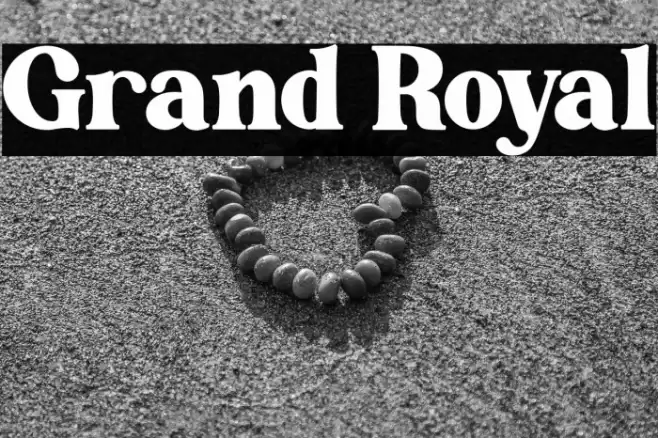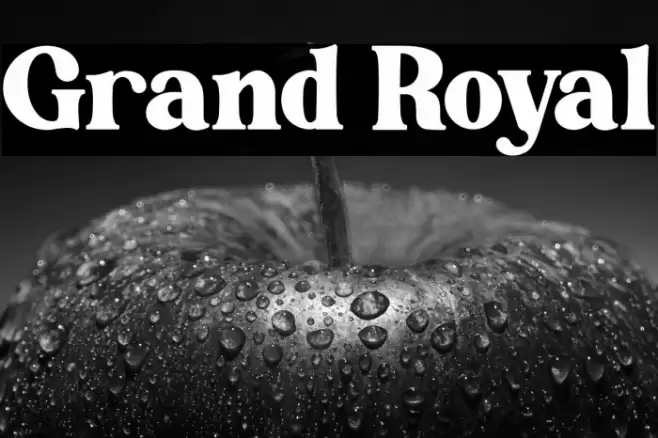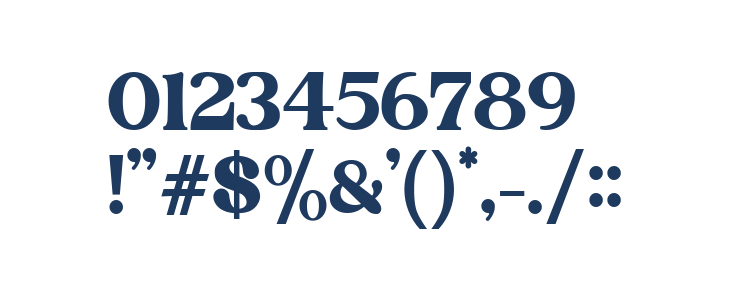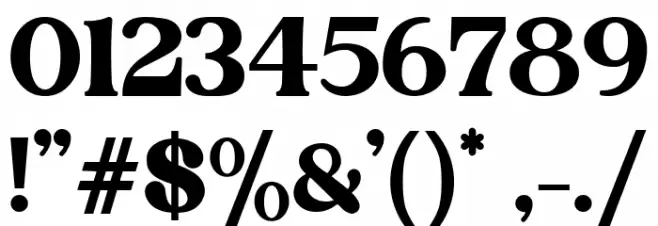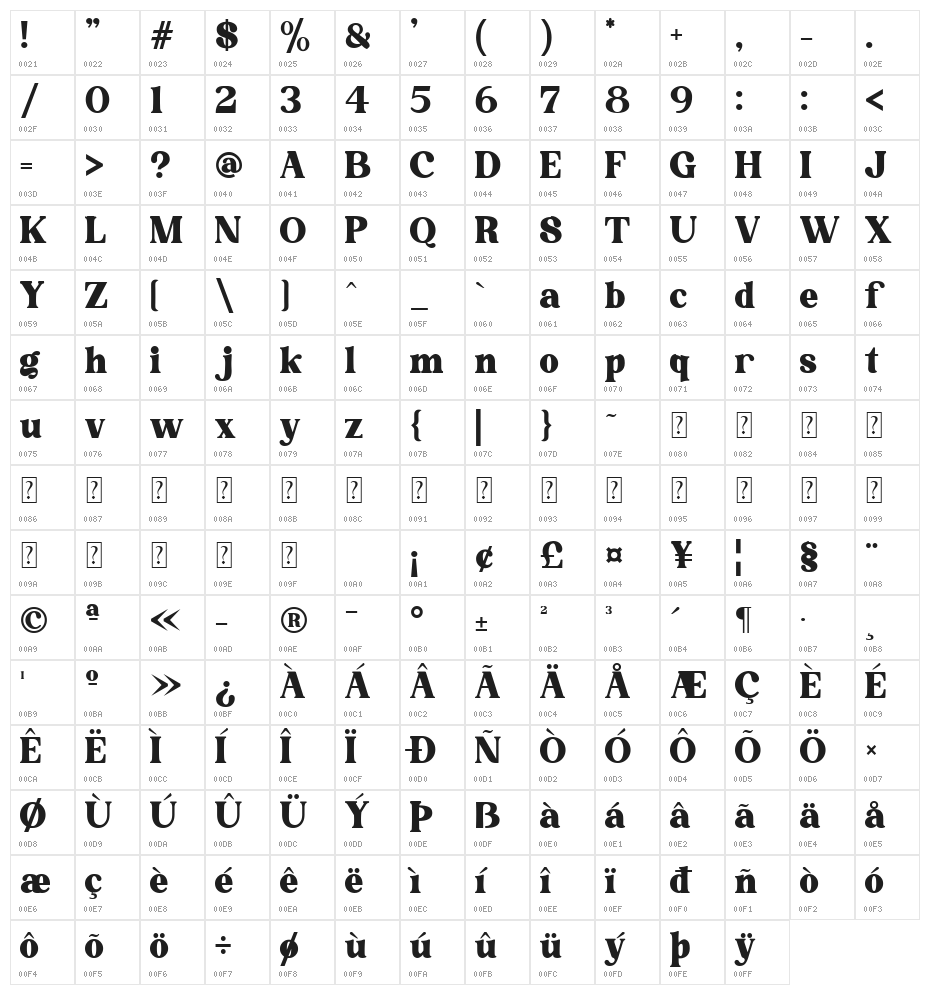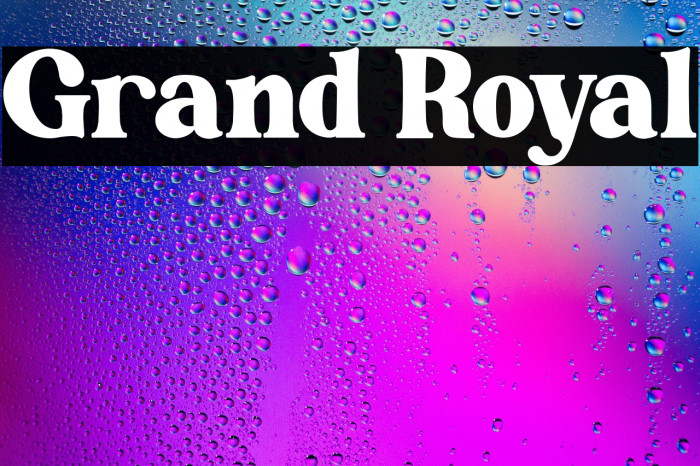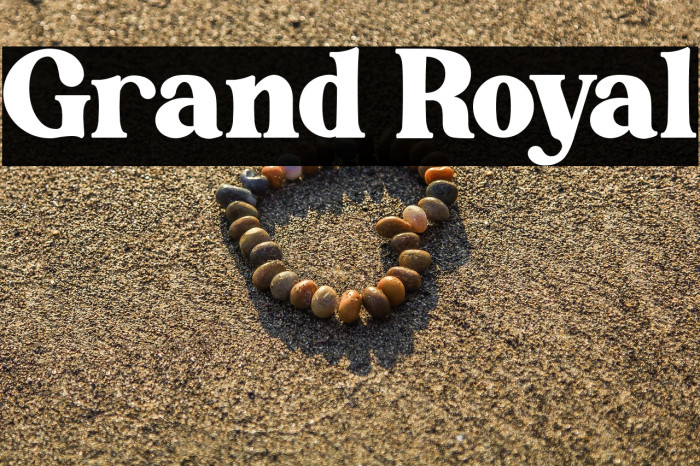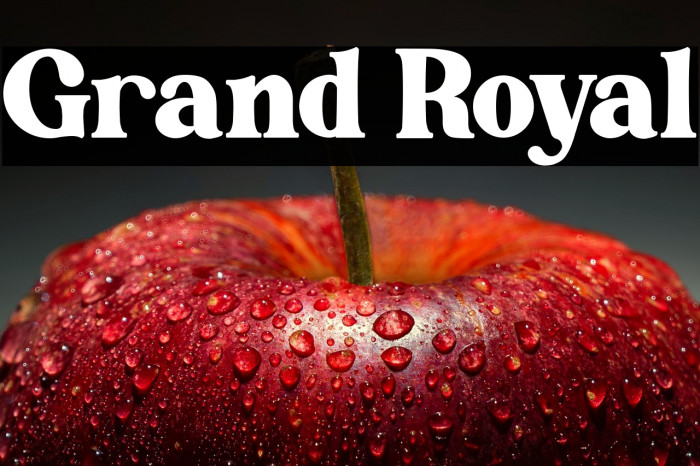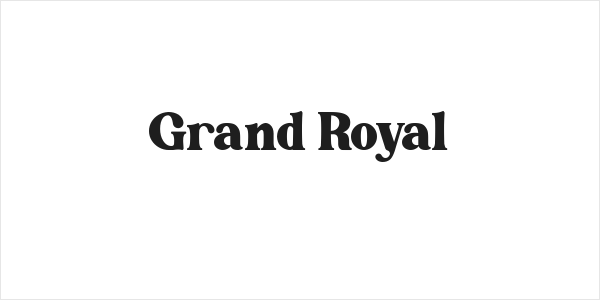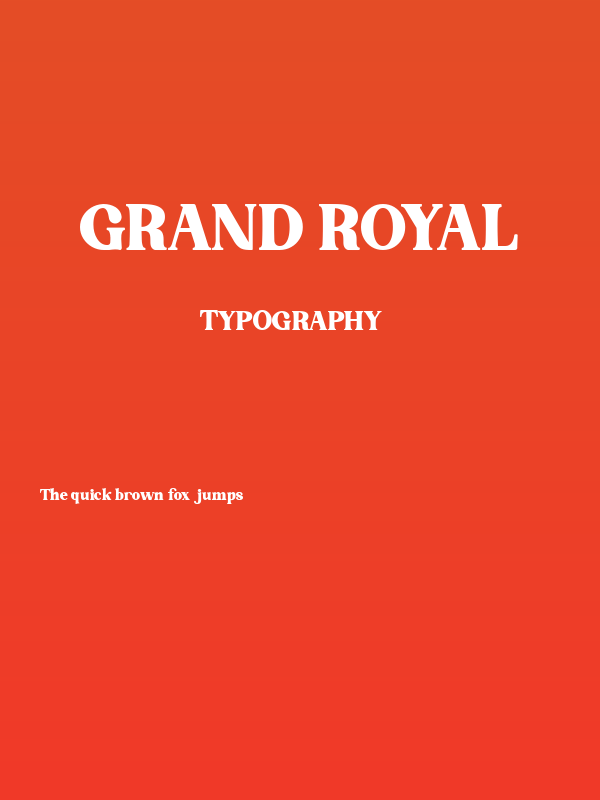
Grand Royal Font
Grand Royal Description
This font exudes a sense of grandeur and elegance, characterized by its bold and prominent serif style. The uppercase letters are stately and commanding, with a strong presence that is ideal for making a statement. The lowercase letters maintain a consistent weight, offering a harmonious balance with the uppercase. The numerals are equally bold, ensuring readability and impact. Special characters are crafted with the same attention to detail, enhancing the font's versatility. The overall design is reminiscent of classic typography, yet it maintains a modern edge, making it suitable for a variety of applications.
A bold, elegant serif font with a classic yet modern appeal from Regular fonts.
- Font: Grand Royal
- Proposed Projects: Ideal for luxury branding, editorial headlines, invitations, and formal event materials.
- Overall Style: Classic
- Use Case: Headlines, Logos, Invitations